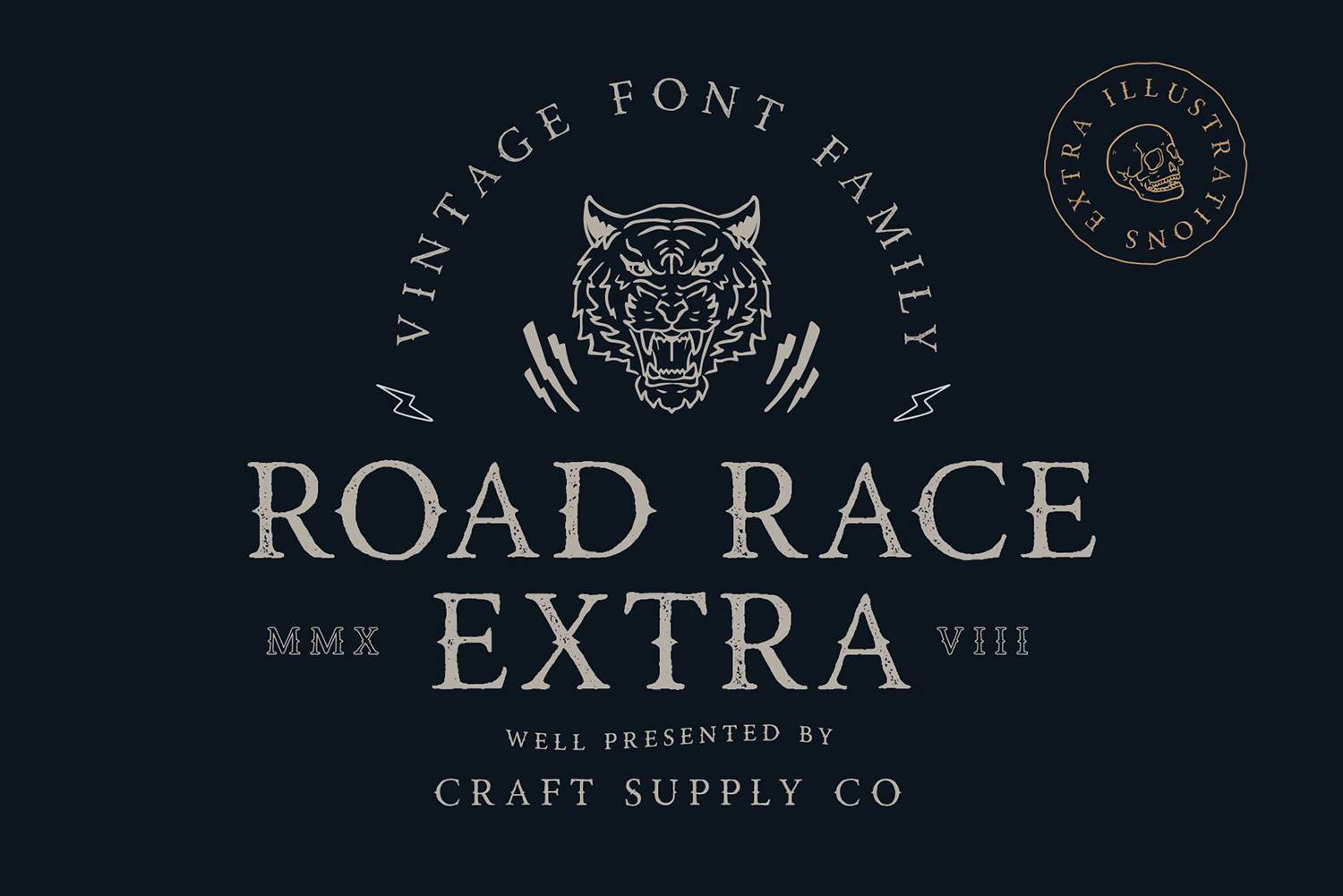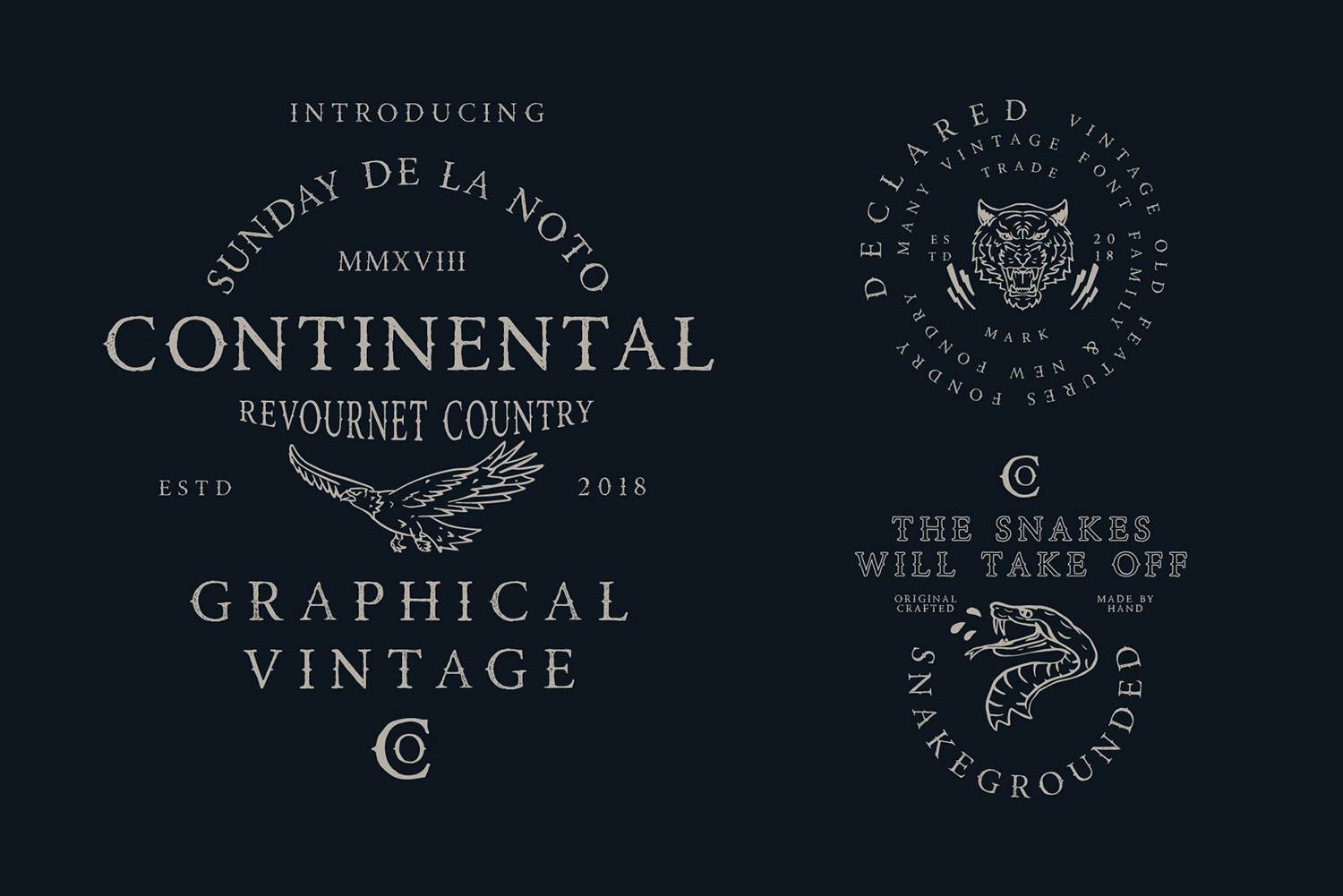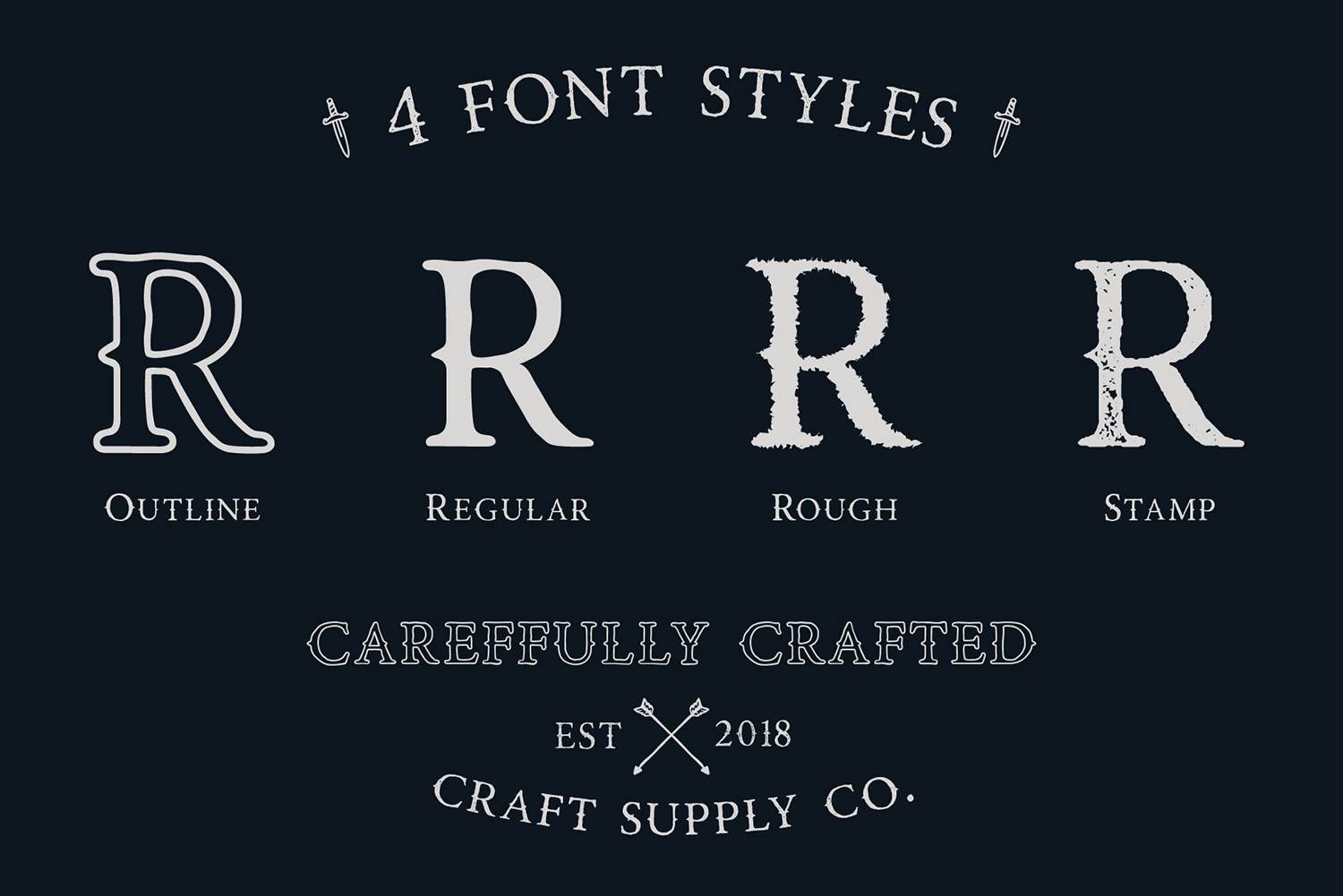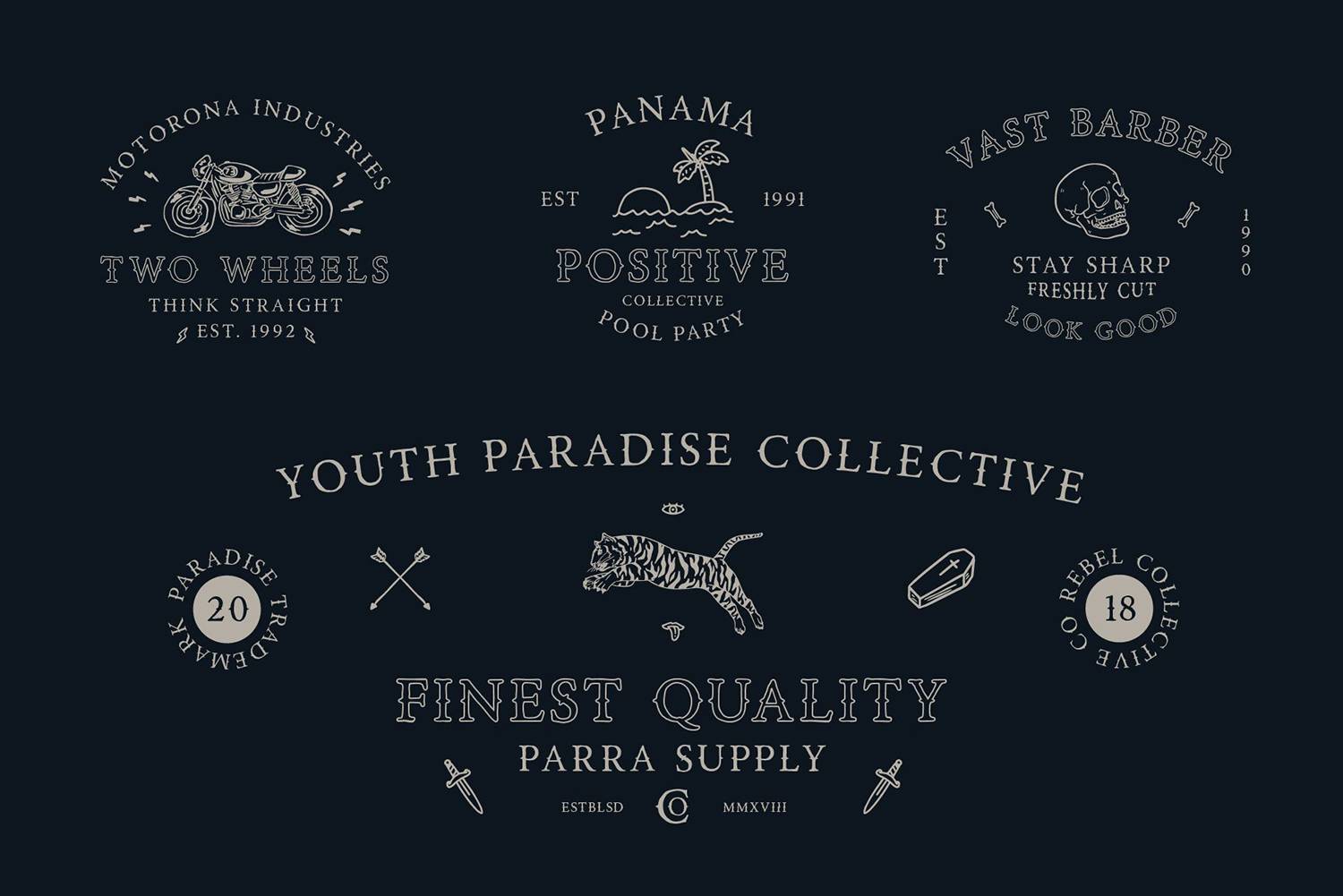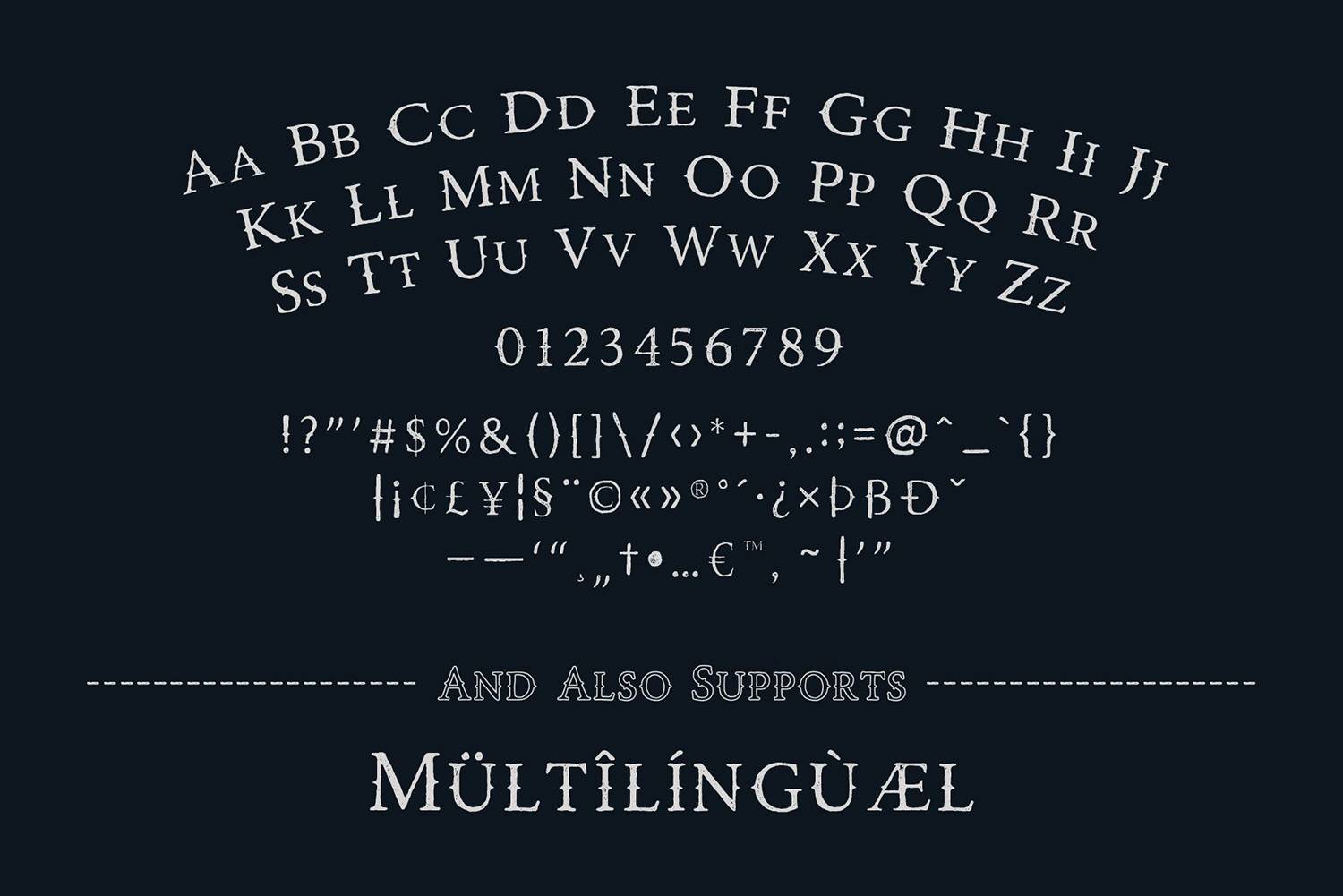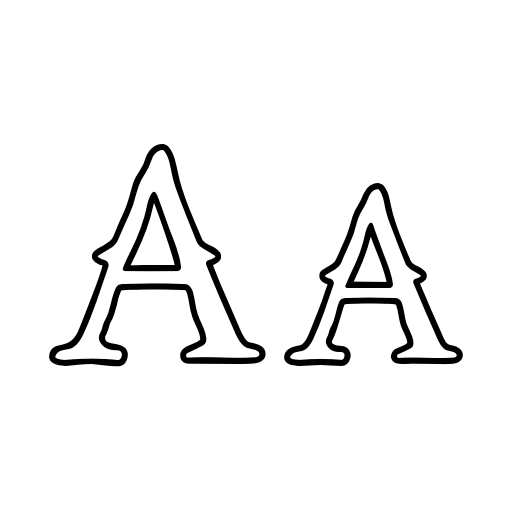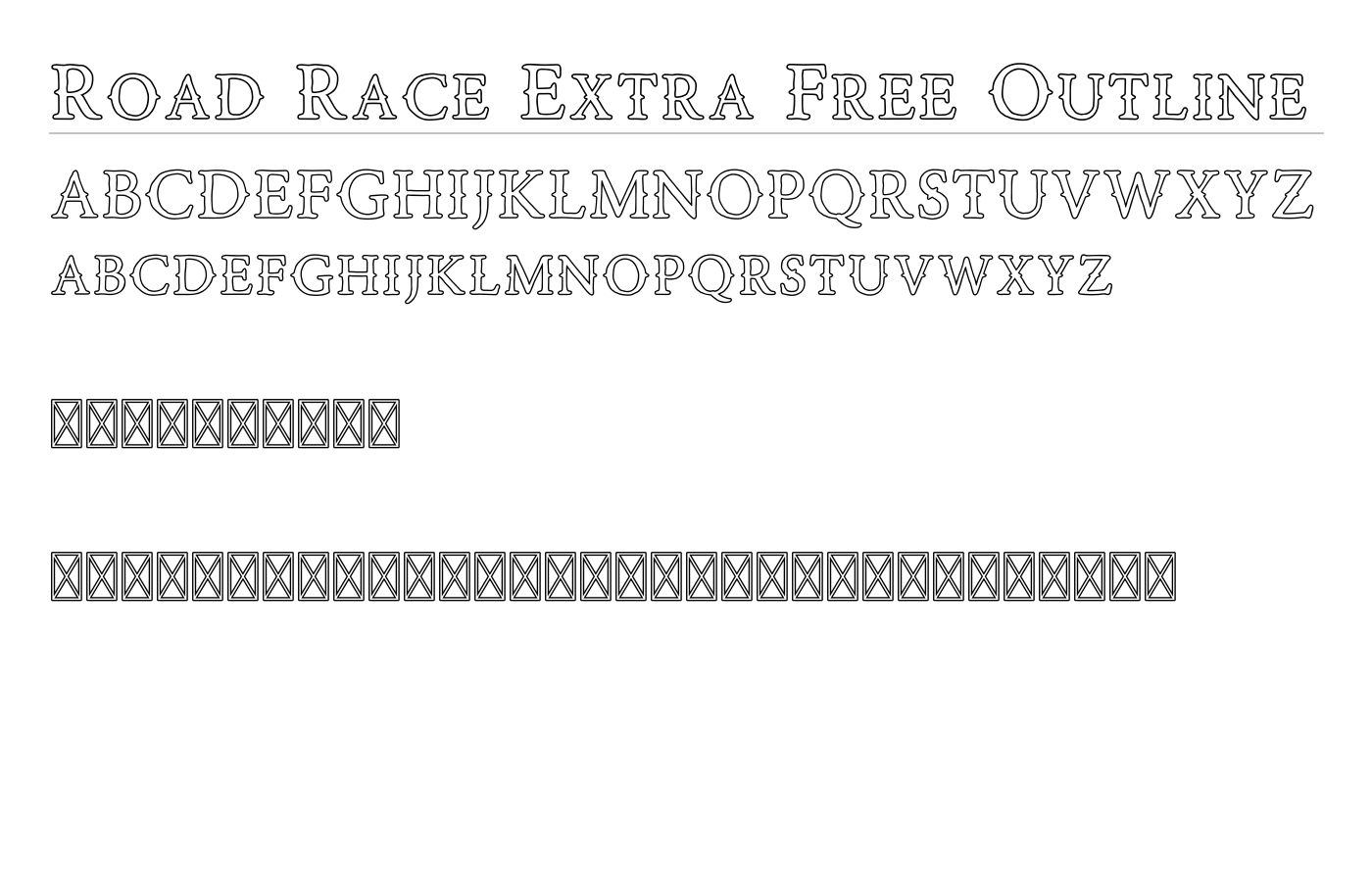
Road Race Extra is a playful and vintage-inspired serif font, characterized by its outlined, decorative letterforms with soft, rounded serifs and moderate stroke contrast. This font’s quirky and hand-drawn feel makes it ideal for creative branding, retro posters, and eye-catching headlines where a unique and lively personality is desired. Its distinctive style works best in display uses, bringing charm and character to designs that need a touch of nostalgic elegance.
Road Race Extra Font
About Road Race Extra Font
| Font family | Road Race Extra Font |